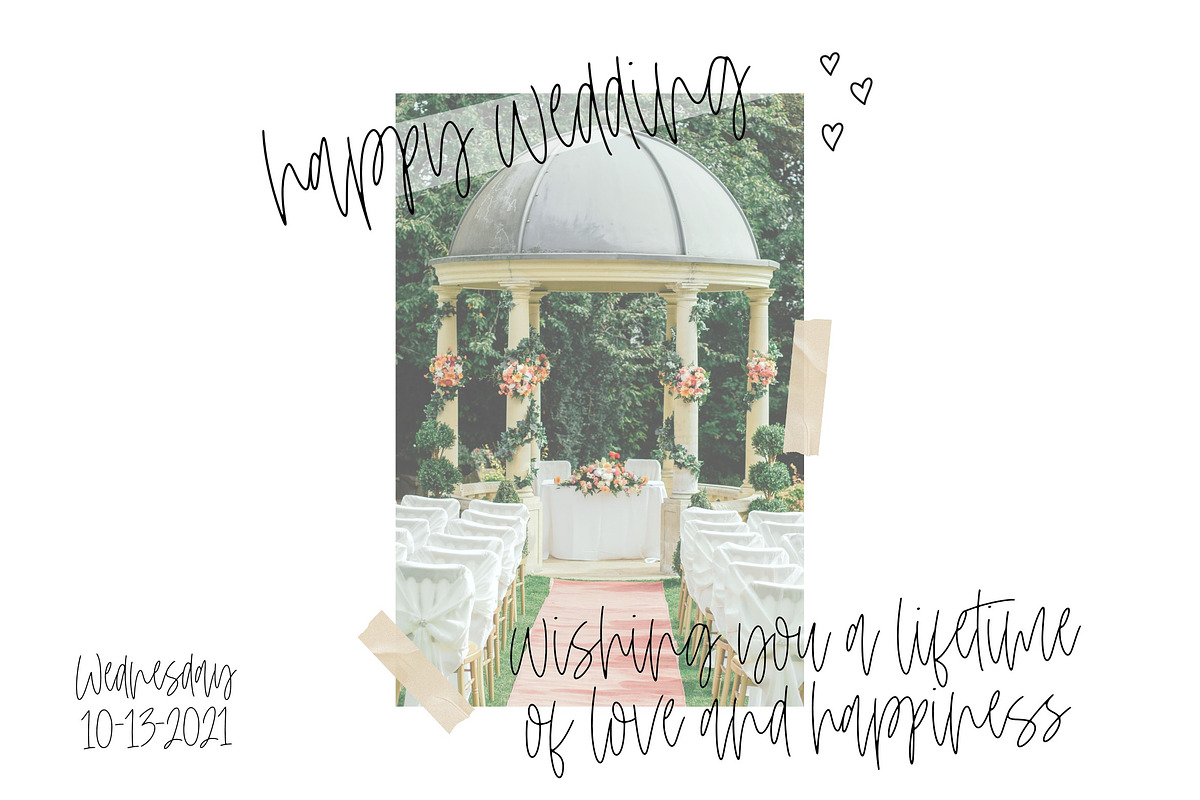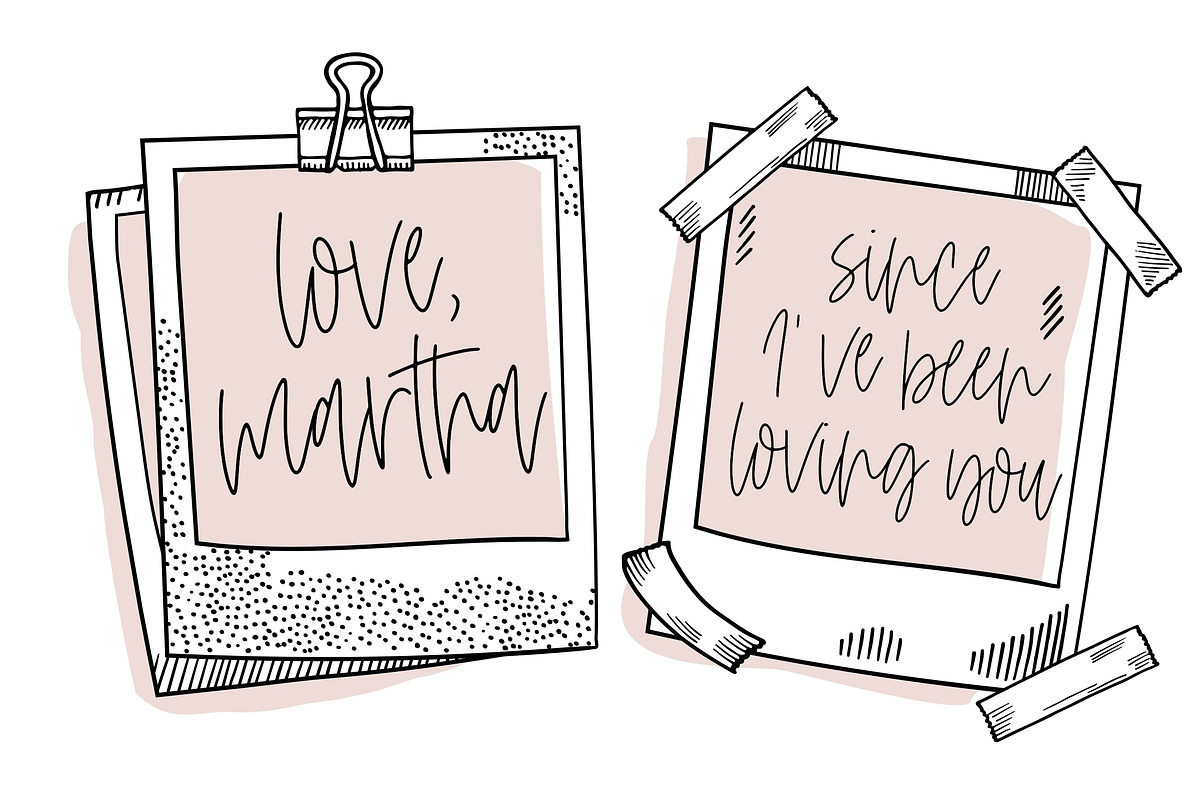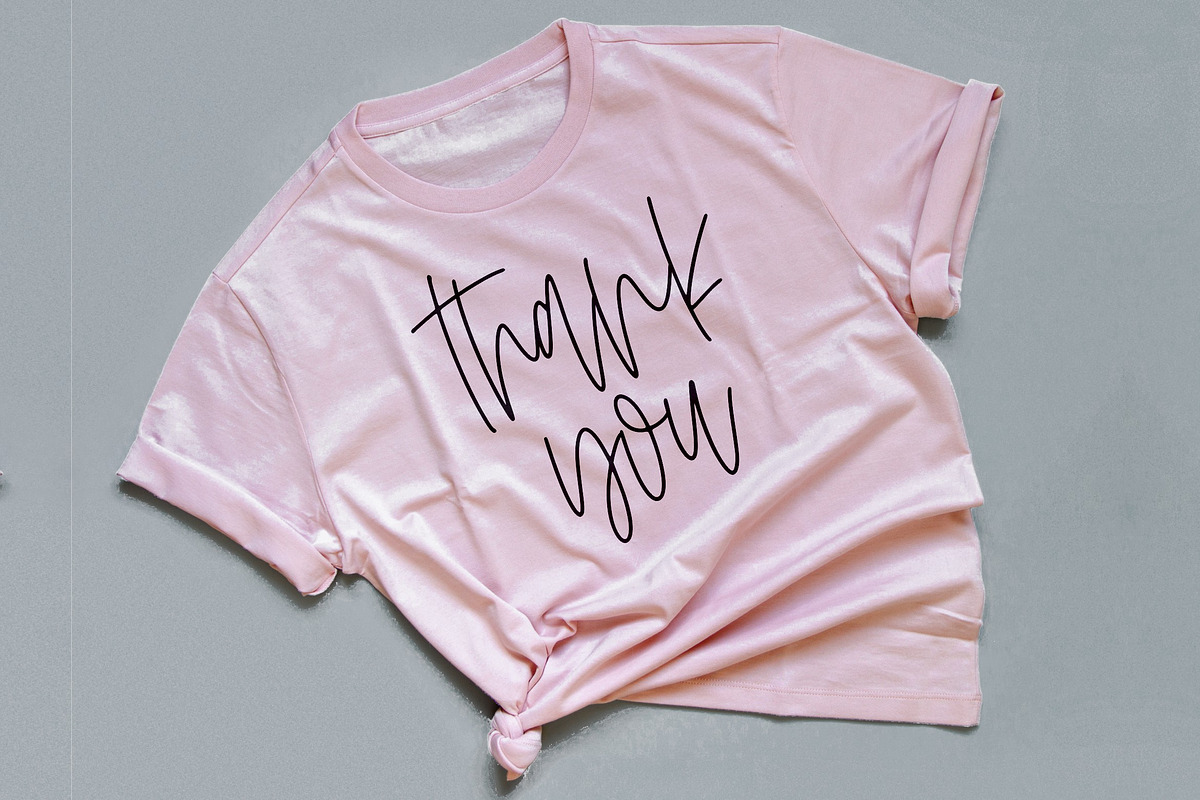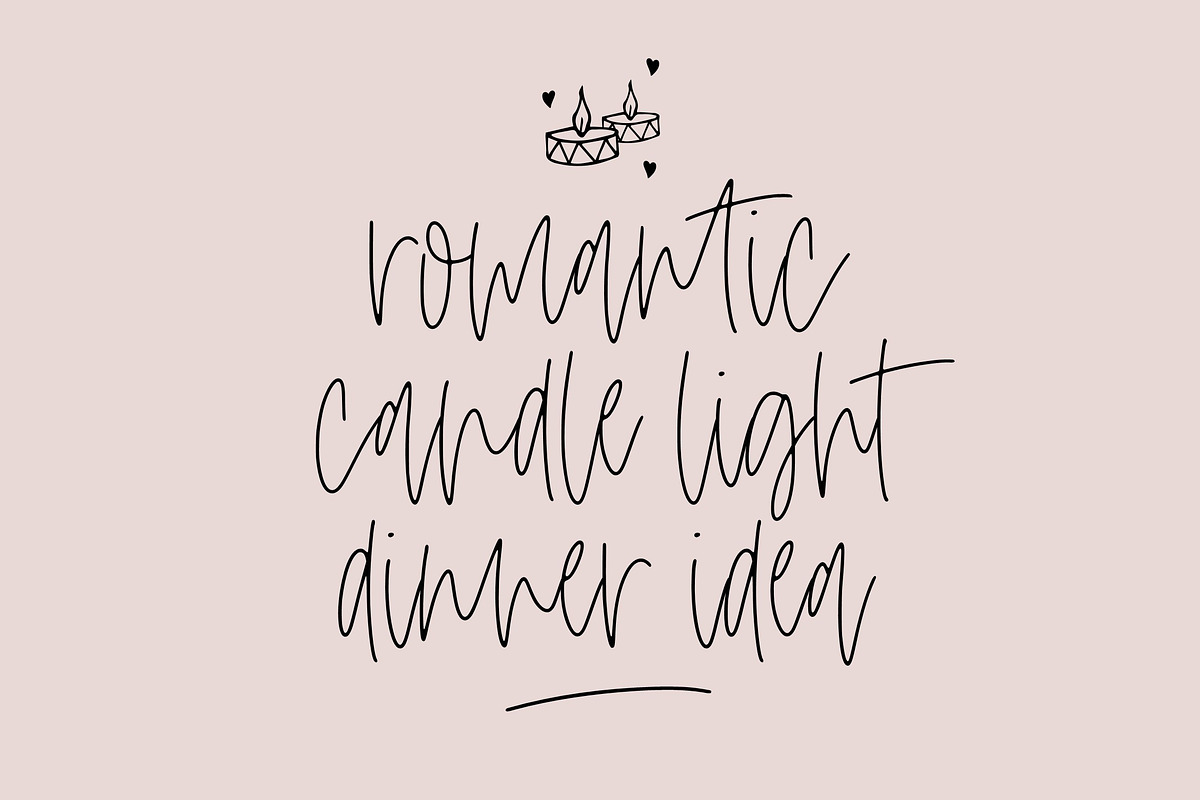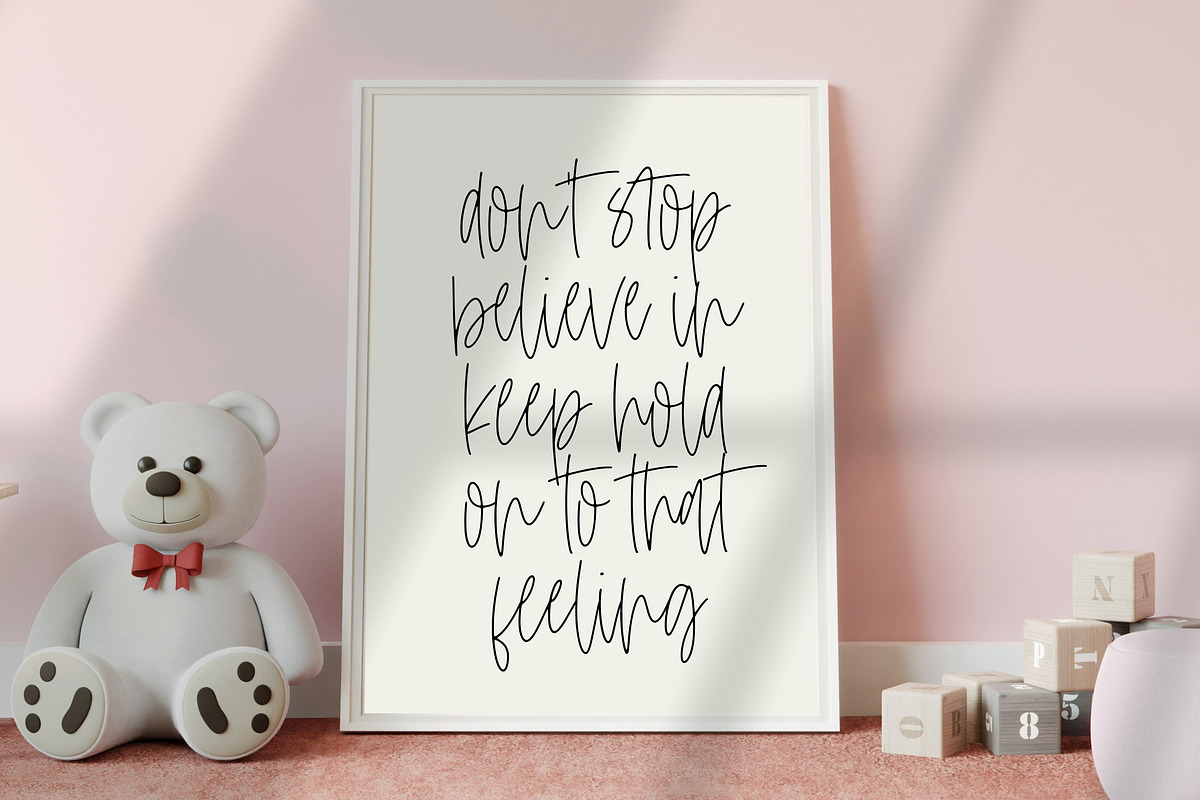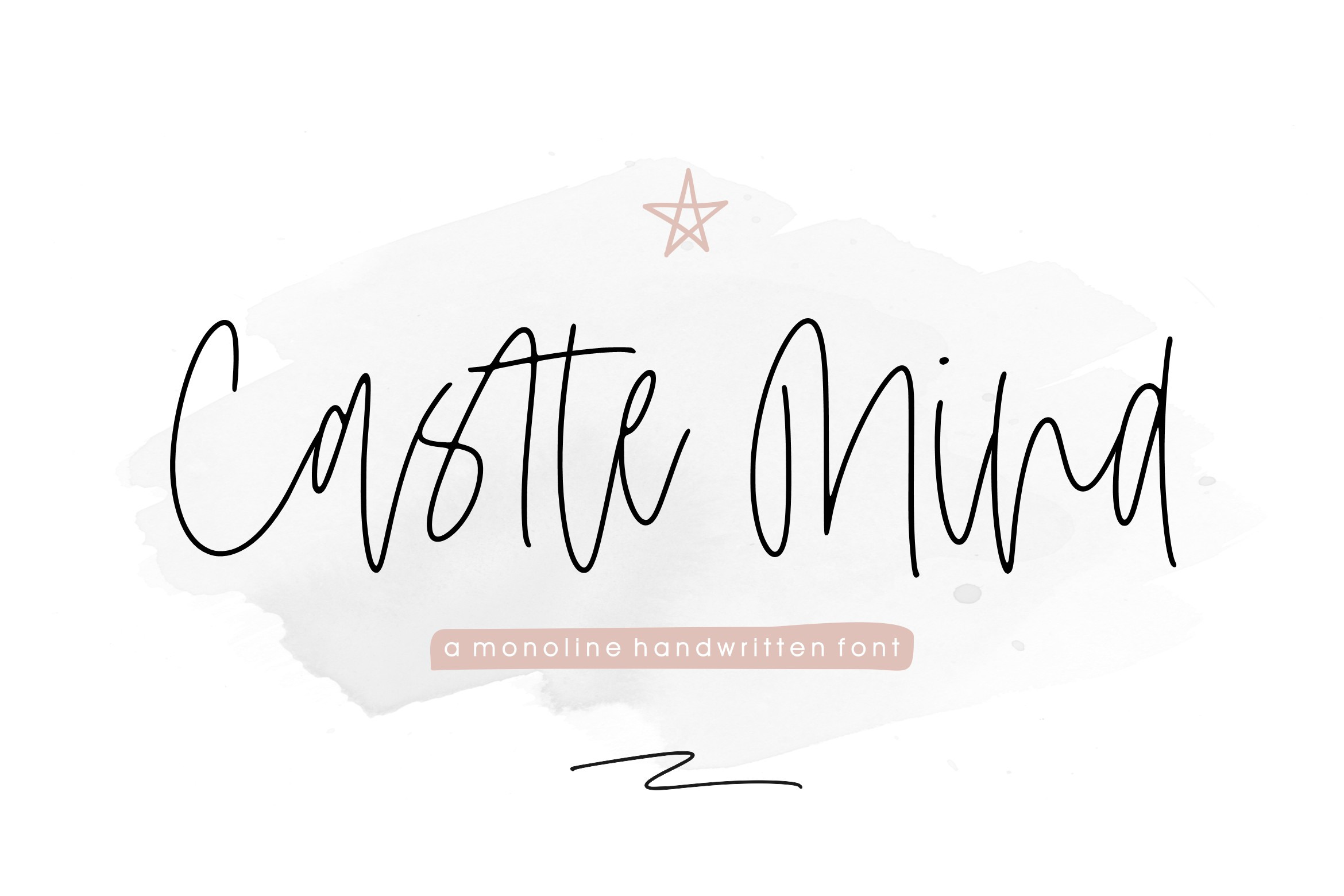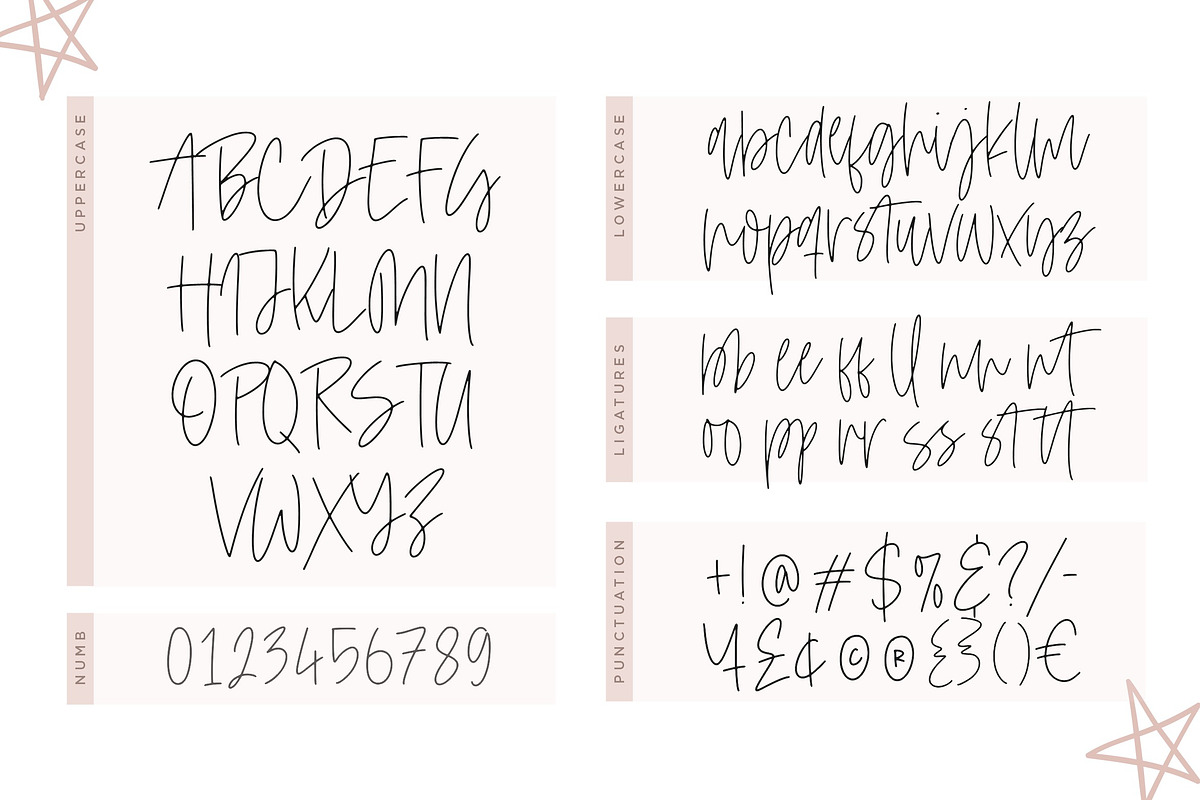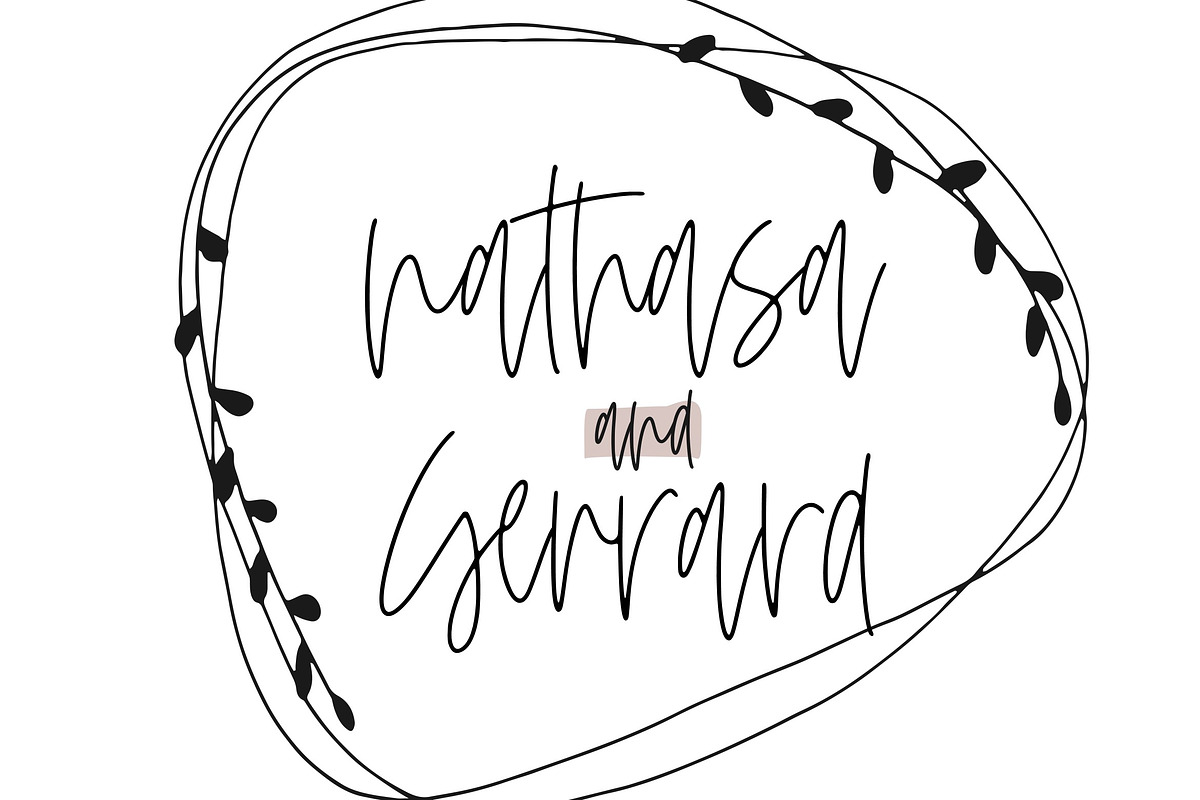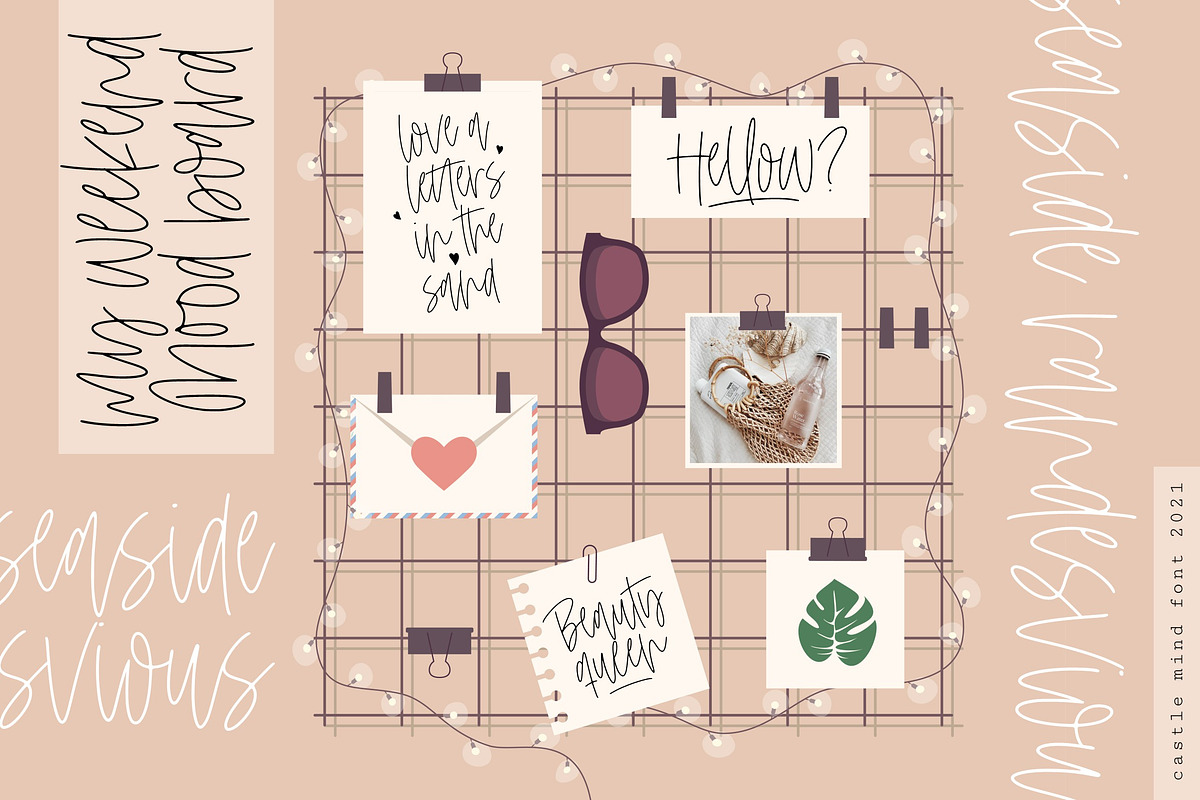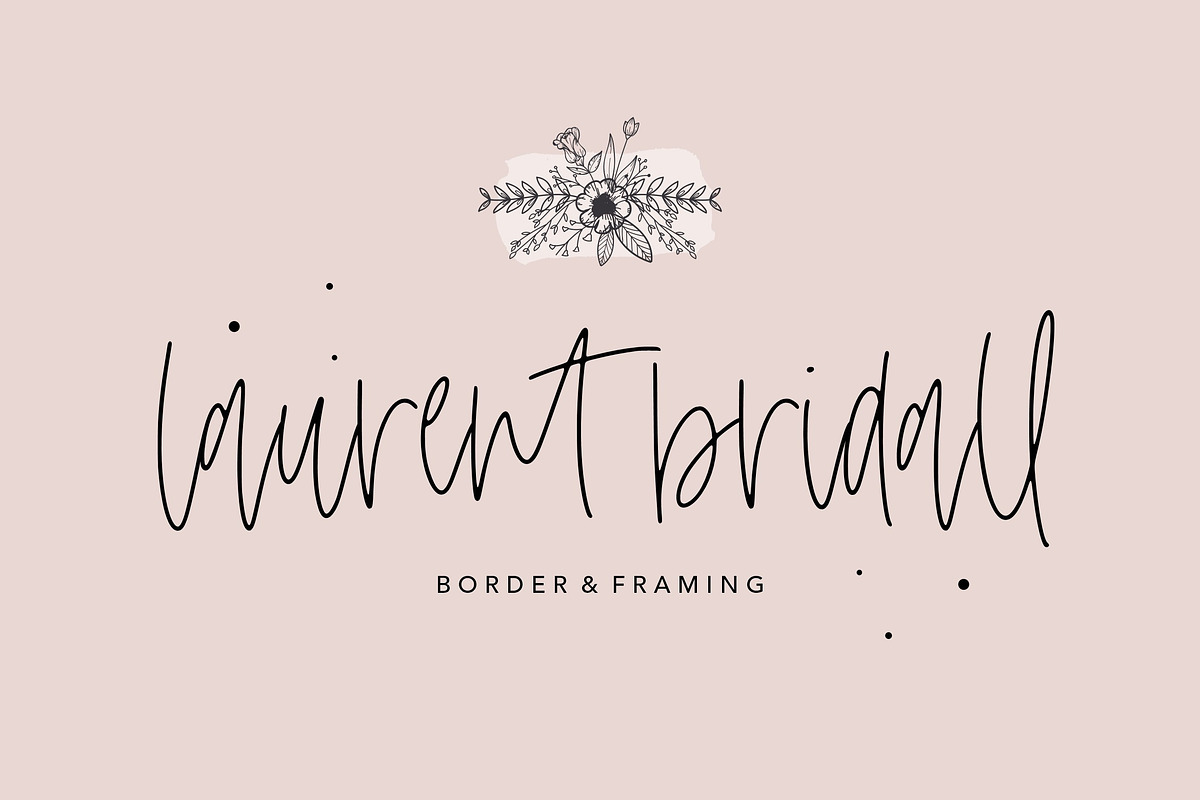
Castle Mind Handwritten Font
Introducing Castle Mind Font!
Castle Mind is a fun and cheerful handwritten font display. This font is suitable for handwriting logos, T-shirts, merchandise, quotes, social media posts, advertising, and a lot more!
Castle Mind comes with an accent language and ligatures.